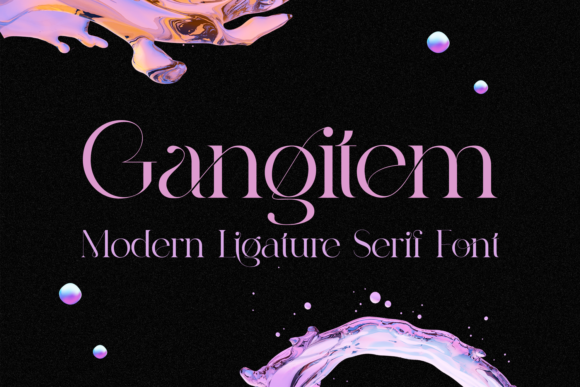
In the realm of typography, Gangitem Font stands as a captivating and distinct serif font, a creation of 177Studio, poised to add a touch of elegance and exclusivity to your creative endeavors. Its timeless beauty and intricate details make it a perfect choice for crafting web designs that exude sophistication, business cards that command attention, or any project yearning for a unique and captivating touch.
Picture this: the graceful curves of Gangitem Font dancing across your screen, weaving a tapestry of visual delight. Each letter, meticulously crafted, carries a story, evoking emotions, and leaving a lasting impression. Be it a personal blog, a corporate website, or an online portfolio, Gangitem Font transforms your digital presence into a symphony of elegance and professionalism.
With its versatility, Gangitem Font seamlessly adapts to diverse design aesthetics, lending its charm to wedding invitations, elegant flyers, or captivating social media posts. It's a font that speaks volumes, effortlessly conveying a sense of luxury, sophistication, and timeless allure. Experience the magic of Gangitem Font today and elevate your designs to new heights of visual excellence.